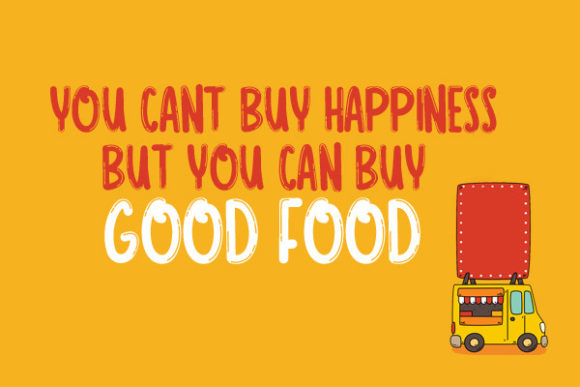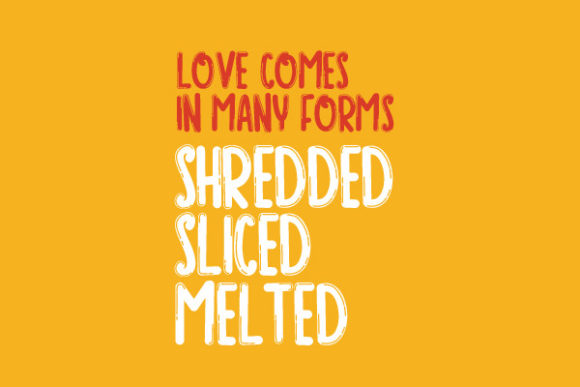
Introduction to Bood Street Font
Bood Street is a bubbly and thick lettered display font.
It is great for delivering any message with confidence, authenticity and charm Use it for cartoons, magazine covers, games or pretty much anything that requires a fun touch.
Bood Street Font offers exceptional quality and versatility, making it a valuable addition to your design toolkit. Whether you’re creating for personal projects or commercial use, Bood Street Font delivers professional results.